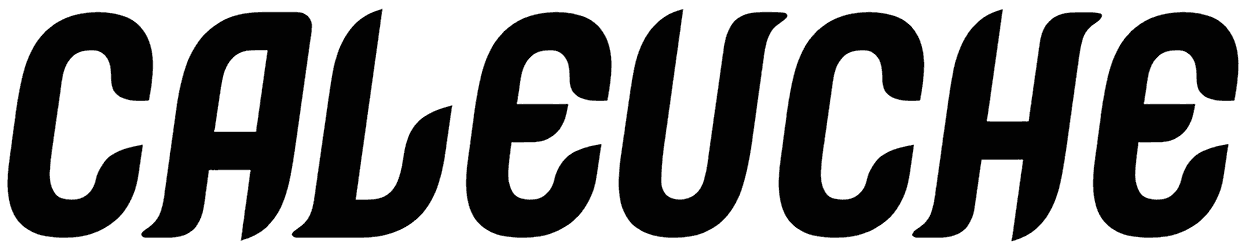
Caleuche Font
We made designing high-end graphic content, such as movie posters, video game banners, product packaging, flyers, or social media posts, much easier for you by providing a lovely font like Caleuche that comes with a modern look.
The characters of this all-caps font are a little bit elongated and tilted, thus conveying a sense of jauntiness, disorder, innovation, or courage. Aside from not supporting numbers, this artwork can look fantastic on your projects.